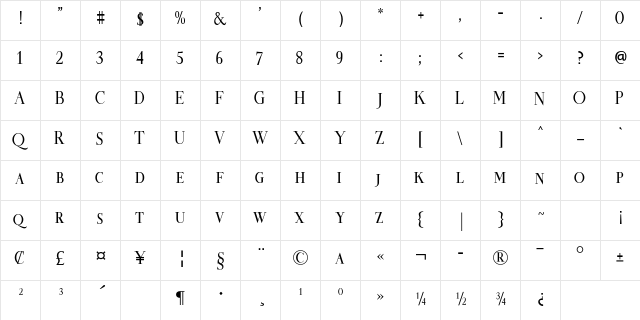
Cornelia - Serif Cornelia
Design Context for Cornelia - Serif Typeface
Cornelia - Serif brings classic typographic sensibility to the table — its serifs and measured letterforms reflect centuries of print heritage.
Pro Tip: Set Cornelia - Serif with slightly loose tracking in headlines to let each letterform's detail read clearly at display sizes.